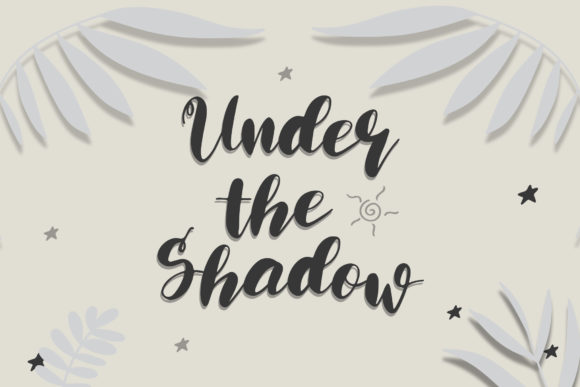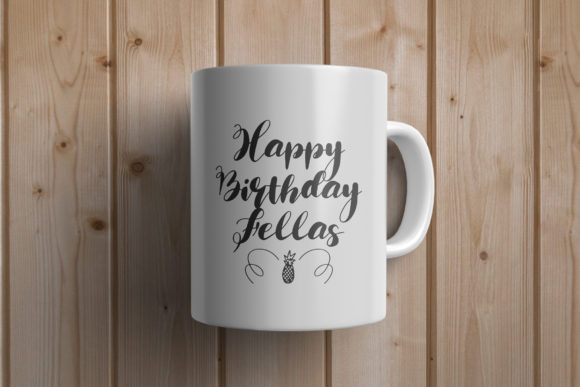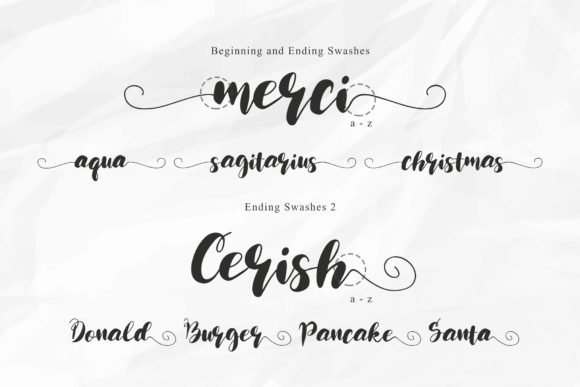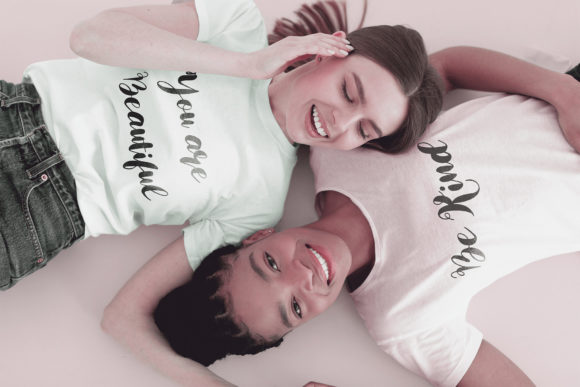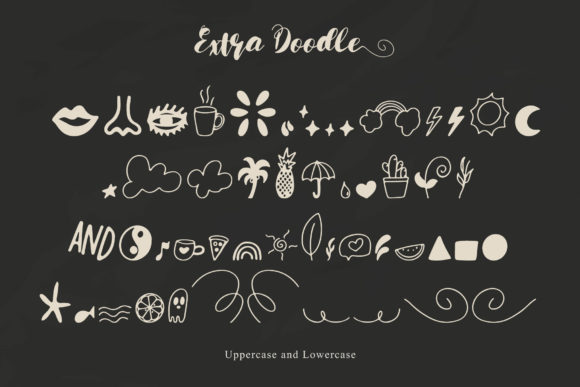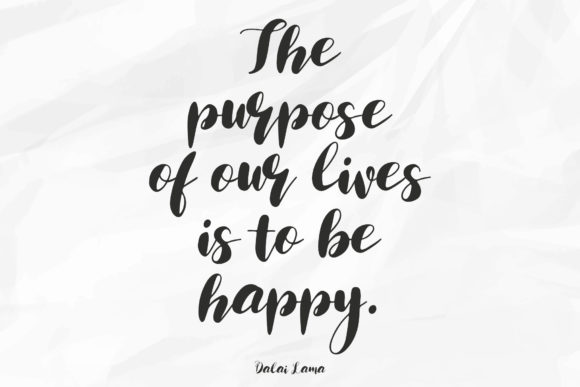
CorkScrew Font: Add a Touch of Whimsy to Your Designs
Are you tired of using the same old fonts in your designs? Do you want to add a touch of personality and whimsy to your projects? Look no further than the CorkScrew Font! This quirky handwritten font is perfect for designers and crafters who want to create unique and eye-catching designs that capture everyone’s attention.
What is CorkScrew Font?
CorkScrew Font is a handwritten font that features swashes and extra doodles, giving it a playful and quirky feel. It’s perfect for a variety of designs, including headings, logos, birthday invitations, t-shirts, letterheads, posters, and much more. With its unique and creative style, CorkScrew Font is sure to make your designs stand out from the crowd.
Key Features of CorkScrew Font
- Quirky Handwritten Style: CorkScrew Font features a unique and playful handwritten style that’s perfect for adding a touch of personality to your designs.
- Swashes and Doodles: The font includes swashes and extra doodles that add an extra layer of creativity and whimsy to your designs.
- Versatile: The font is perfect for a variety of designs, including headings, logos, birthday invitations, t-shirts, letterheads, posters, and much more.
Why Use CorkScrew Font?
There are many reasons why you should consider using CorkScrew Font in your designs. Here are just a few:
- Adds Personality to Your Designs: CorkScrew Font adds a touch of personality and whimsy to your designs, making them more engaging and eye-catching.
- Perfect for Creative Projects: The font is perfect for creative projects, such as birthday invitations, t-shirts, and posters.
- Unique Style: The font features a unique and quirky style that’s sure to make your designs stand out from the crowd.
How to Use CorkScrew Font
Using CorkScrew Font is easy! Here are a few tips to get you started:
- Choose the Right Design: CorkScrew Font is perfect for a variety of designs, including headings, logos, birthday invitations, t-shirts, letterheads, posters, and much more.
- Experiment with Different Styles: Don’t be afraid to experiment with different styles and combinations of glyphs and swashes.
- Pay Attention to Readability: While CorkScrew Font is perfect for creative projects, make sure to pay attention to readability, especially when using the font for body text.
In conclusion, CorkScrew Font is a quirky and creative font that’s perfect for designers and crafters who want to add a touch of personality and whimsy to their designs. With its unique handwritten style, swashes, and extra doodles, CorkScrew Font is sure to make your designs stand out from the crowd. Whether you’re creating headings, logos, birthday invitations, t-shirts, letterheads, posters, or much more, CorkScrew Font is the perfect choice.